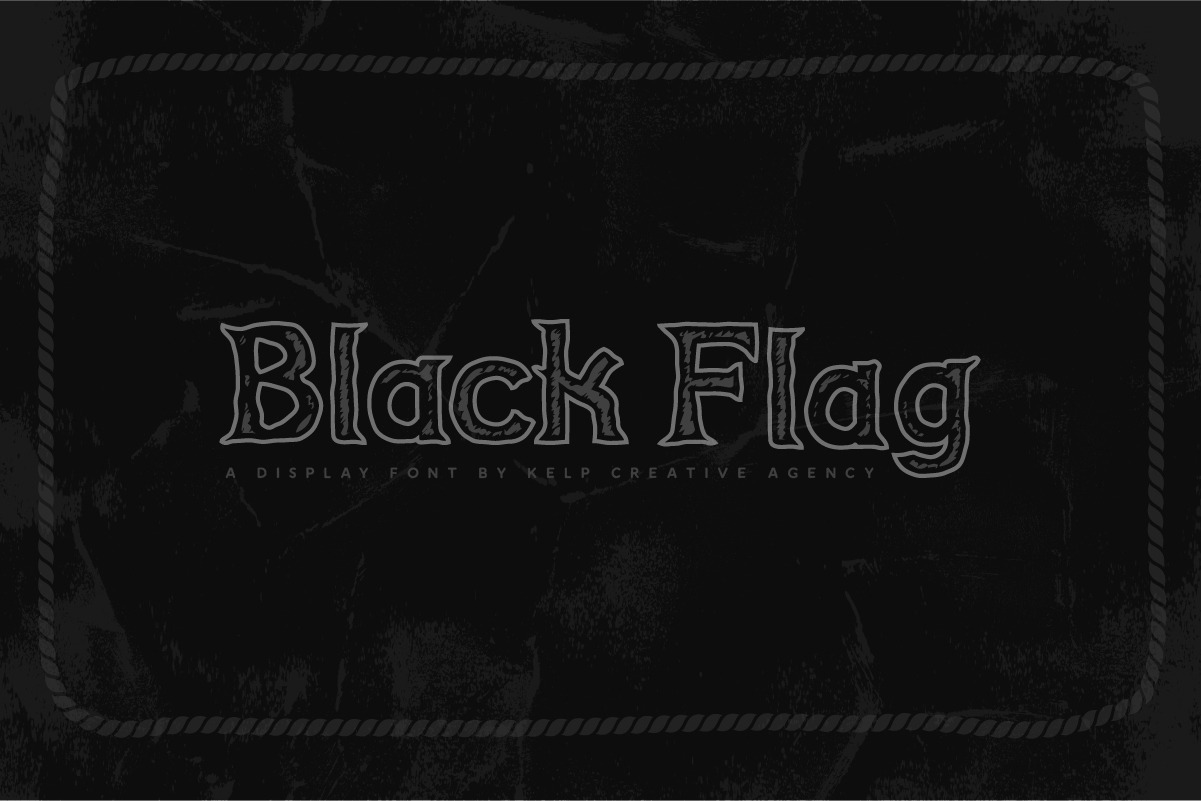
BlackFlag Typeface
BlackFlag is a family serif font born of the salty sea. With multiple styles, this font is suitable for a variety of use cases. Suitable for branding, T-shirt, Vintage Design or Logotype. Your creativity is your only limitation.
- BlackFlag Clean
- BlackFlag Rough
- BlackFlag Stamp
Extra alternate glyphs